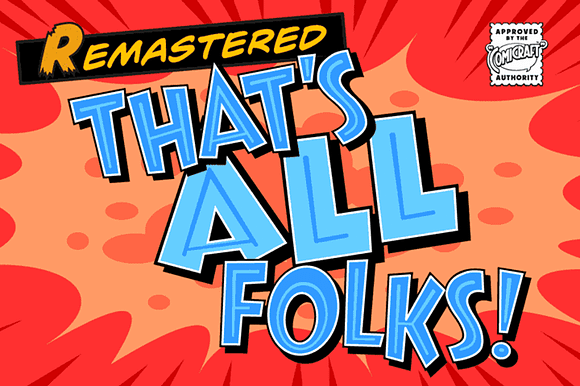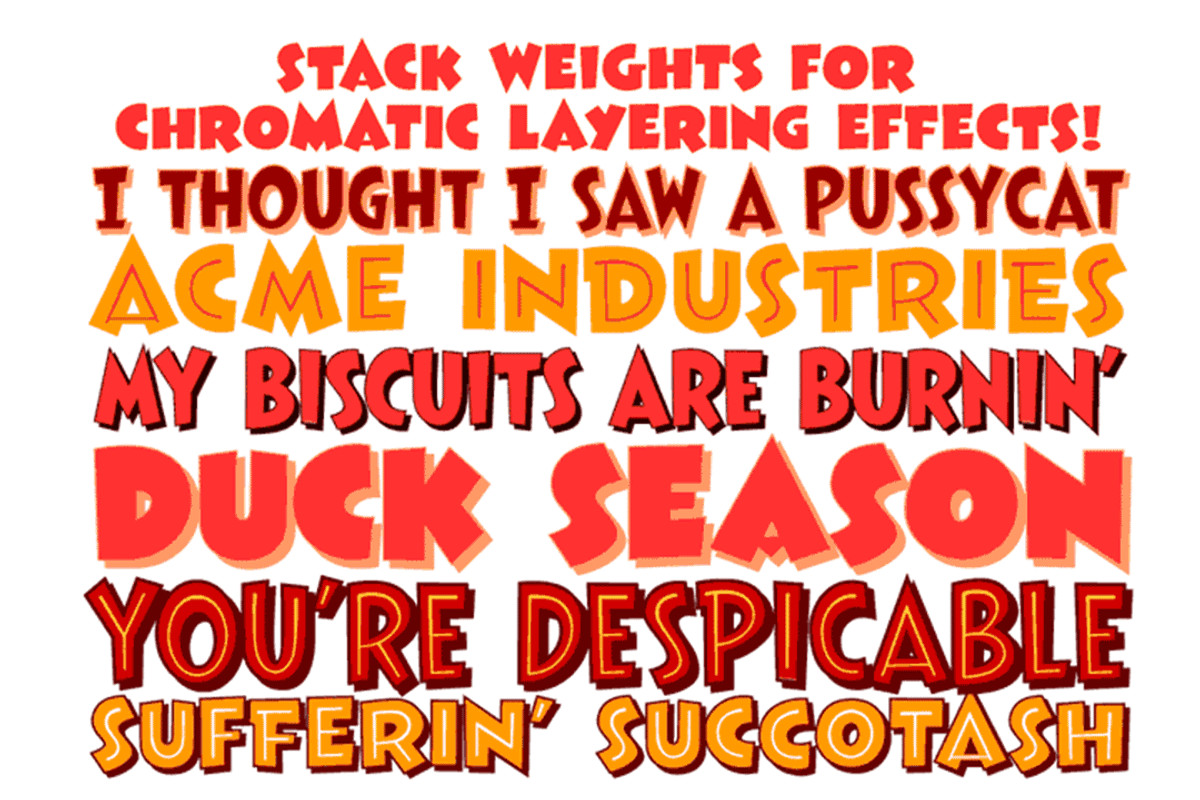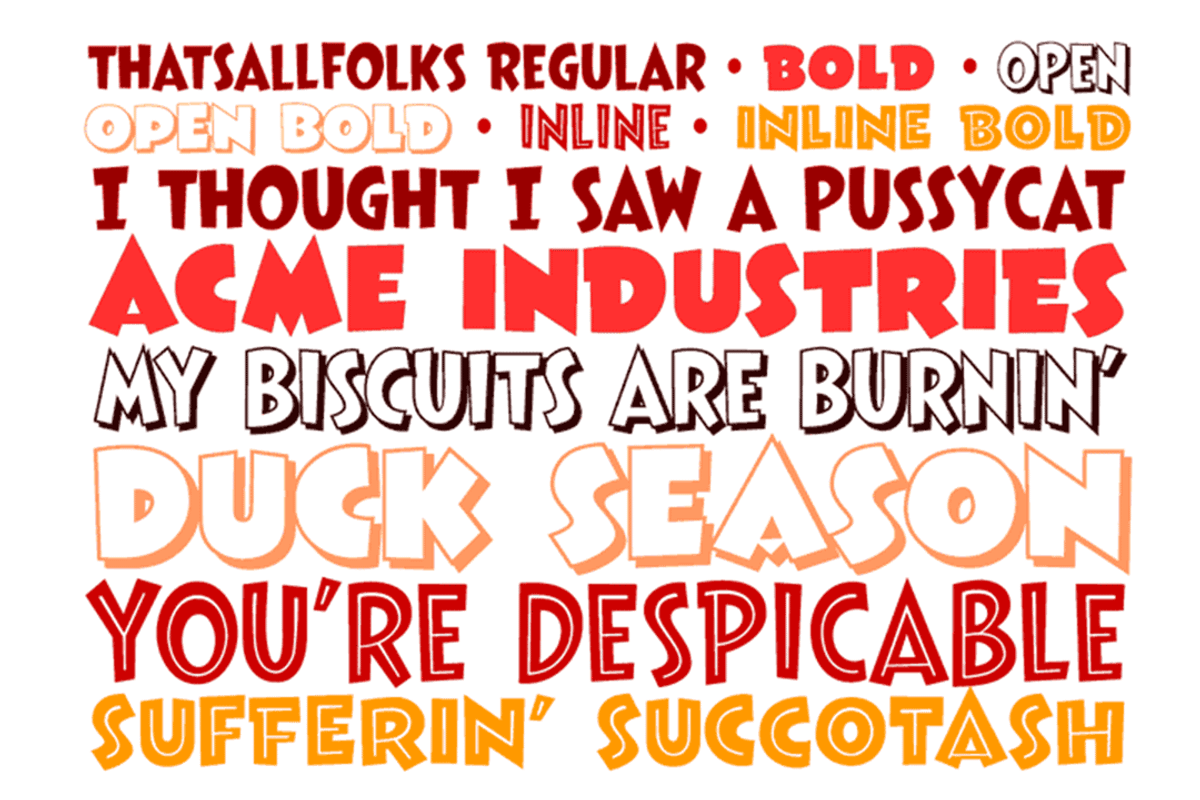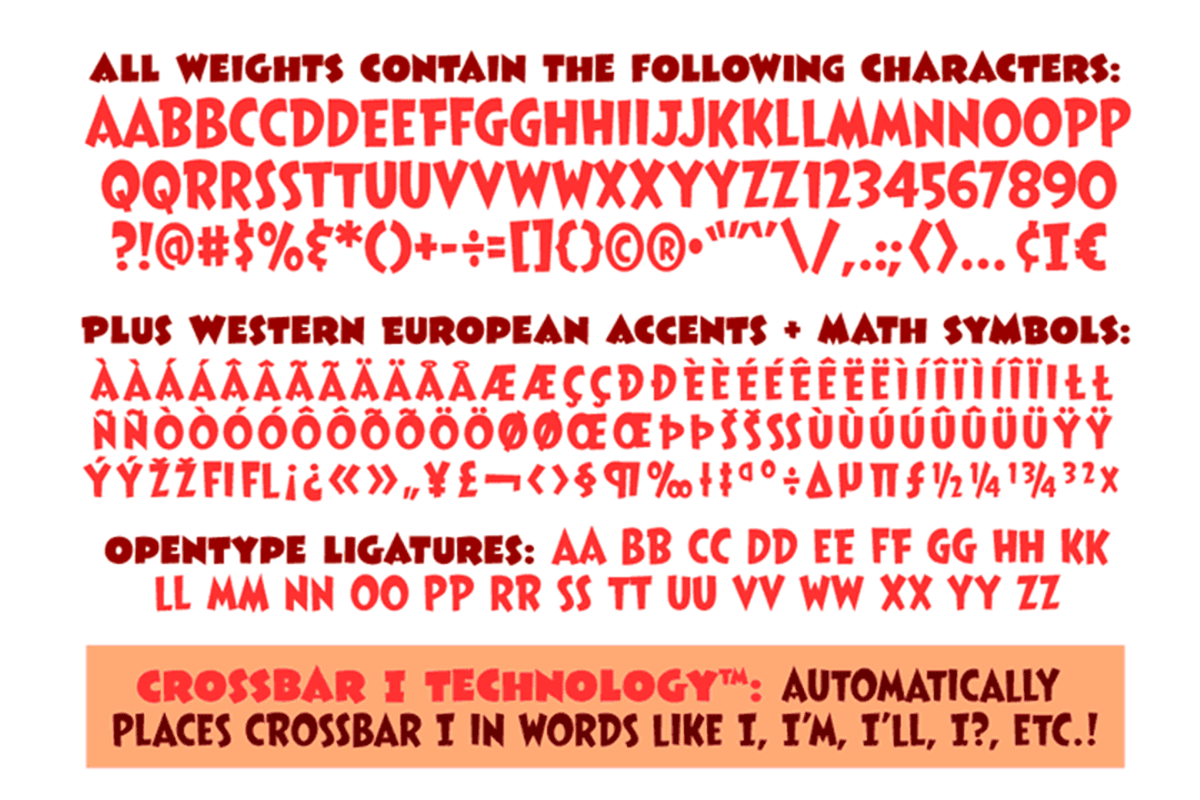
That’s All Folks Cartoon Font
Run amuck and head on down to Toon Town with us to enjoy some Madcap Laffs with our latest Frolicking Font, 'THAT'S ALL FOLKS'. It's good, clean family fun for all your favorite comic cuts and looney'toons! What's more, it's (sing along) S-O-E, A-S-Y, T-O-U-S-E!
Remastered That's All Folks now has INLINE weights (Regular & Bold), plus improved spacing & kerning, auto-ligatures and Crossbar I Technology™